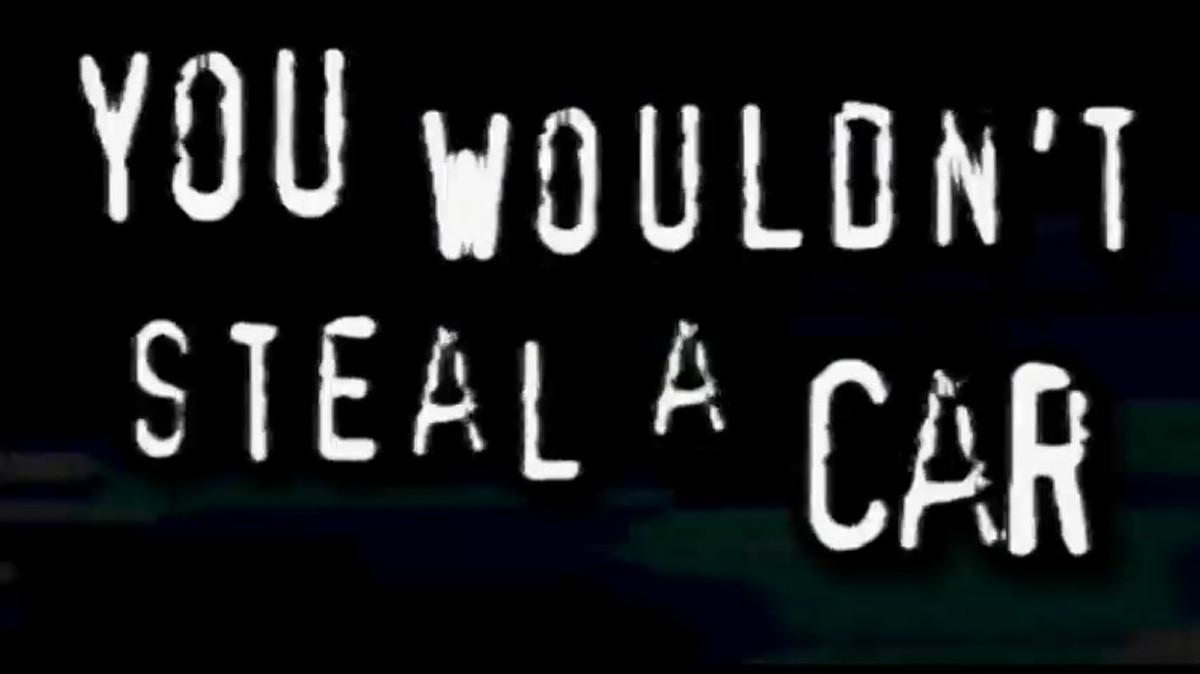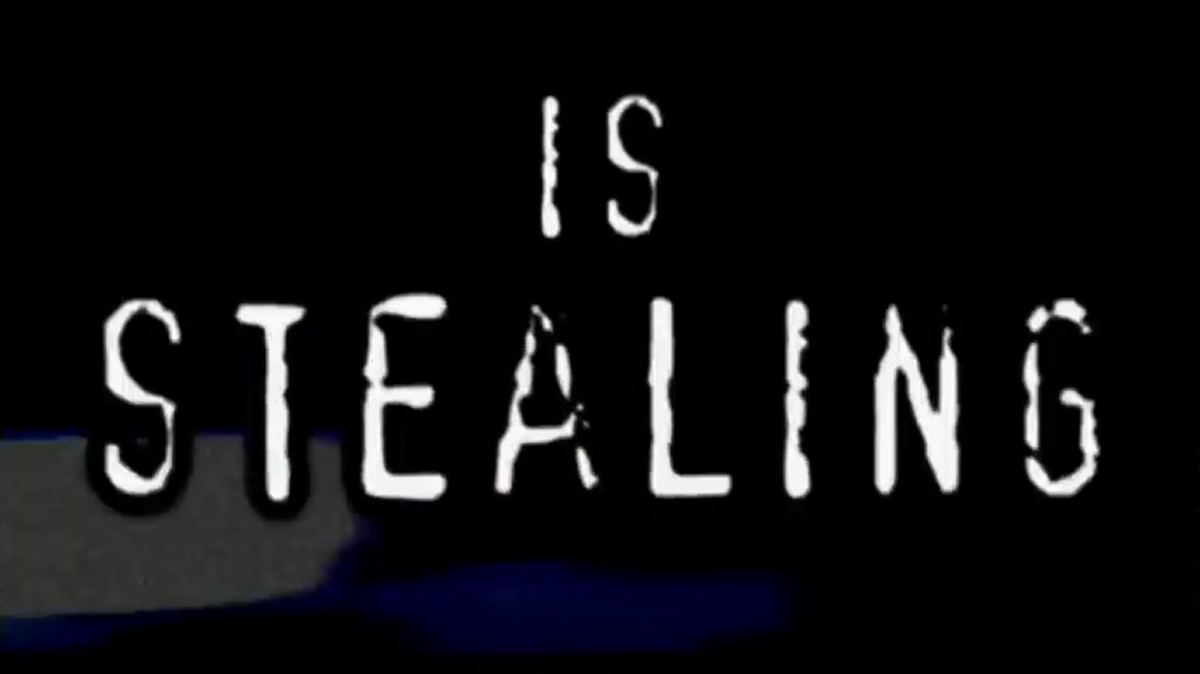
It has been pointed out that the font used in the anti-piracy campaign was an illegal copy font.
'You Don't Steal Cars' is a video created by the British League Against Copyright Theft and the Motion Picture Association of America in cooperation with the Intellectual Property Office of Singapore for an anti-piracy campaign. Many DVDs sold in the United States and overseas between 2004 and 2007 contained this video before the main feature.
A woman is sitting in front of a PC.
It looks like you're trying to download a pirated copy of a movie.
The words 'YOU WOULDN'T STEAL A CAR'.
A man appears trying to steal a car.
After that, messages like 'YOU WOULDN'T STEAL A HANDBAG' and 'YOU WOULDN'T STEAL A TELEVISION' are displayed.
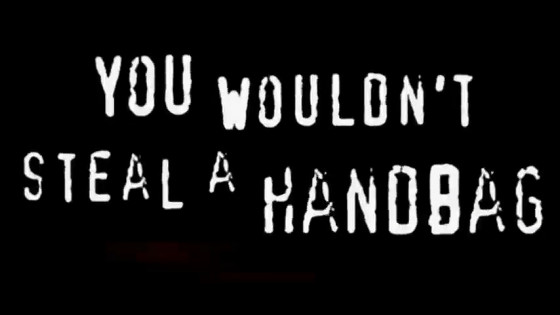
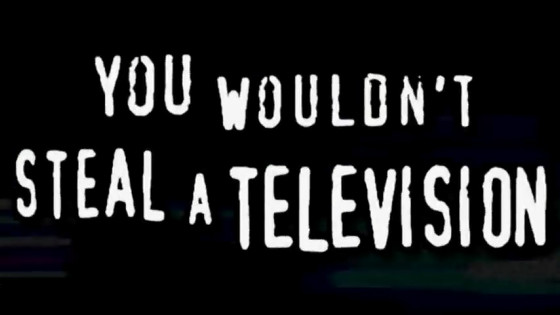
The next message that was displayed was 'DOWNLOADING PIRATED FILMS IS STEALING.' This video conveys that downloading pirated movies is a crime just like stealing a car or a bag.
On April 19, 2025, the font used in 'You Won't Steal a Car' was reported on the Fonts In Use website, which investigates fonts used in various situations. According to this website, the scary font used in messages such as 'YOU WOULDN'T STEAL A CAR' and 'YOU WOULDN'T STEAL A HANDBAG' is called ' FF Confidential '.
Data reporter and Python programmer Melissa Lewis responded to this, pointing out that FF Confidential's designer , Just van Rossum , is the brother of Python's creator , Guido van Rossum .
TIL: The 2000s piracy PSA used a font designed by the fantastic Just van Rossum, whose brother Guido created the Python programming language.
FF Confidential also reported the existence of a malicious clone called 'Xband Rough.'
2) I reached out to van Rossum, and Xband Rough is indeed an 'illegal clone' of FF Confidential; it's just been around forever and is ubiquitous. I have no idea whether the PSA used the original, and felt too shy to ask!
Rib then found an archive of the 'Don't Steal Cars' campaign (PDF file) and examined the fonts in the PDF file with FontForge , a free font editor.
As a result, it was reported that the font used in the 'You Don't Steal Cars' campaign was a copy font 'Xband Rough'. Rib describes Xband Rough as a 'pirated font' and Lewis as an 'illegal clone', but while fonts are copyrighted in the UK, they are not in the US, so it seems difficult to judge the legality of Xband Rough.